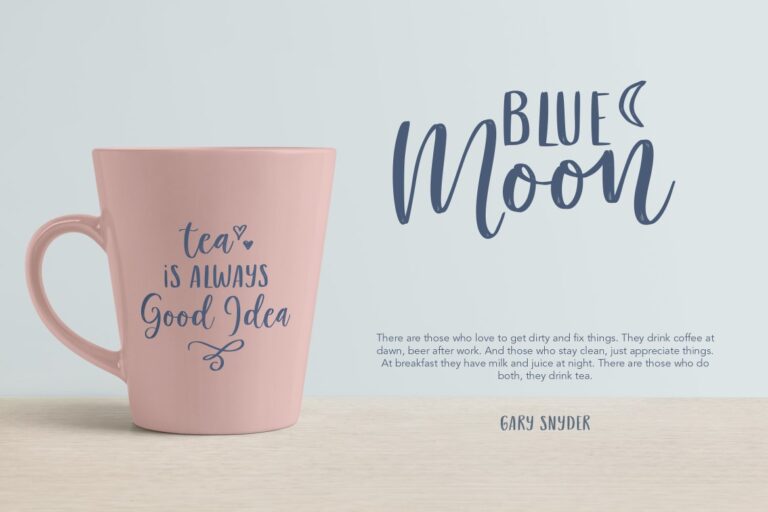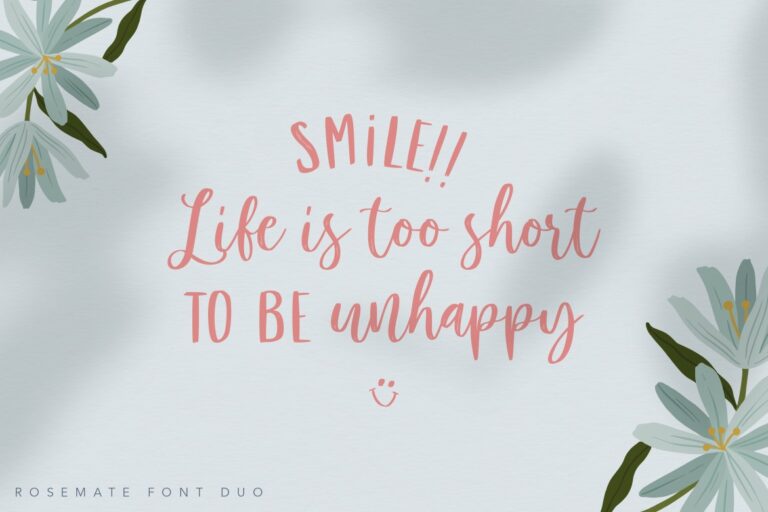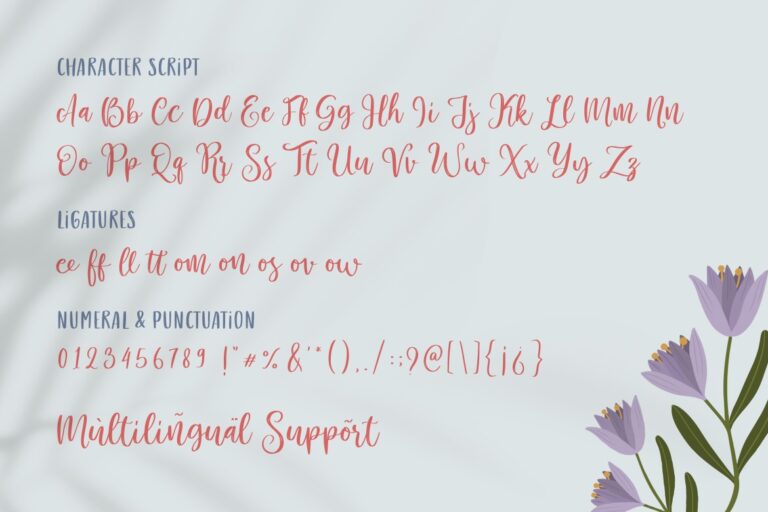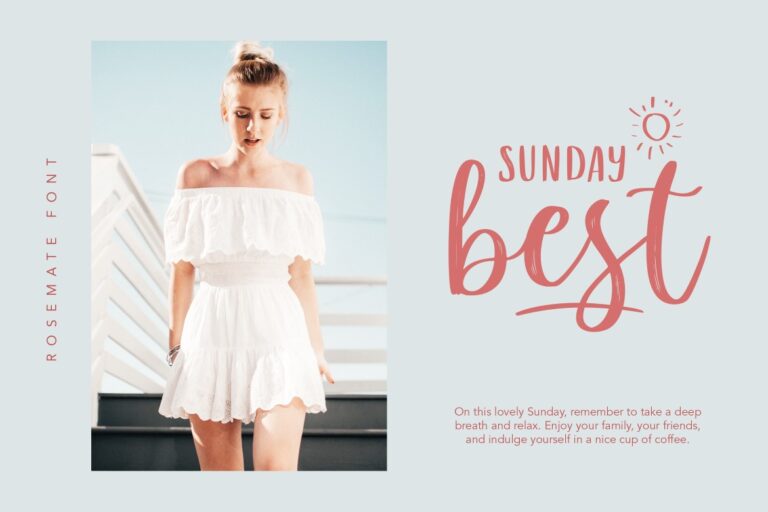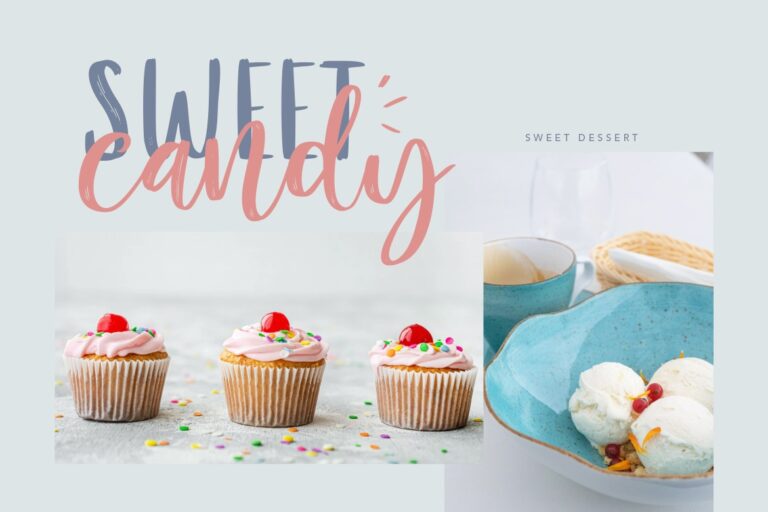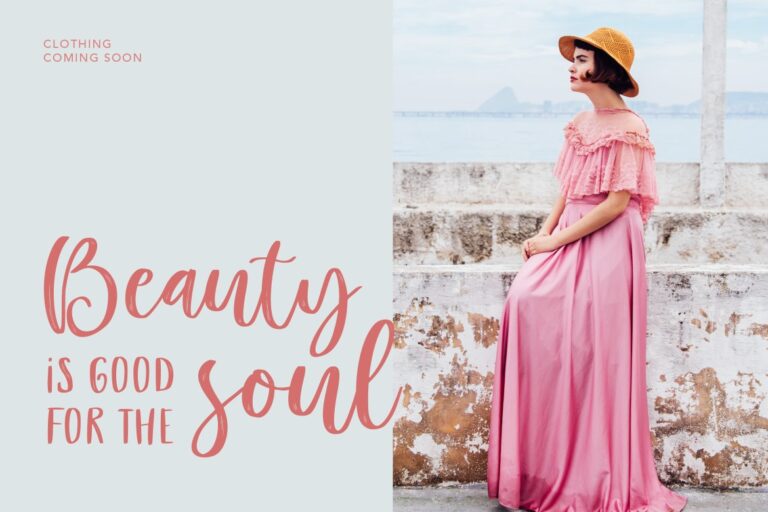
Rosemate Font Duo
Hi There, this is Rosemate font. Yes after looking at the cover, you will get that this font is full for feminine design. This is font duo with extras. Rosemate script is beautiful and it will be more beautiful if paired with rosemate sans. Just use your imagination and get the wonderful result